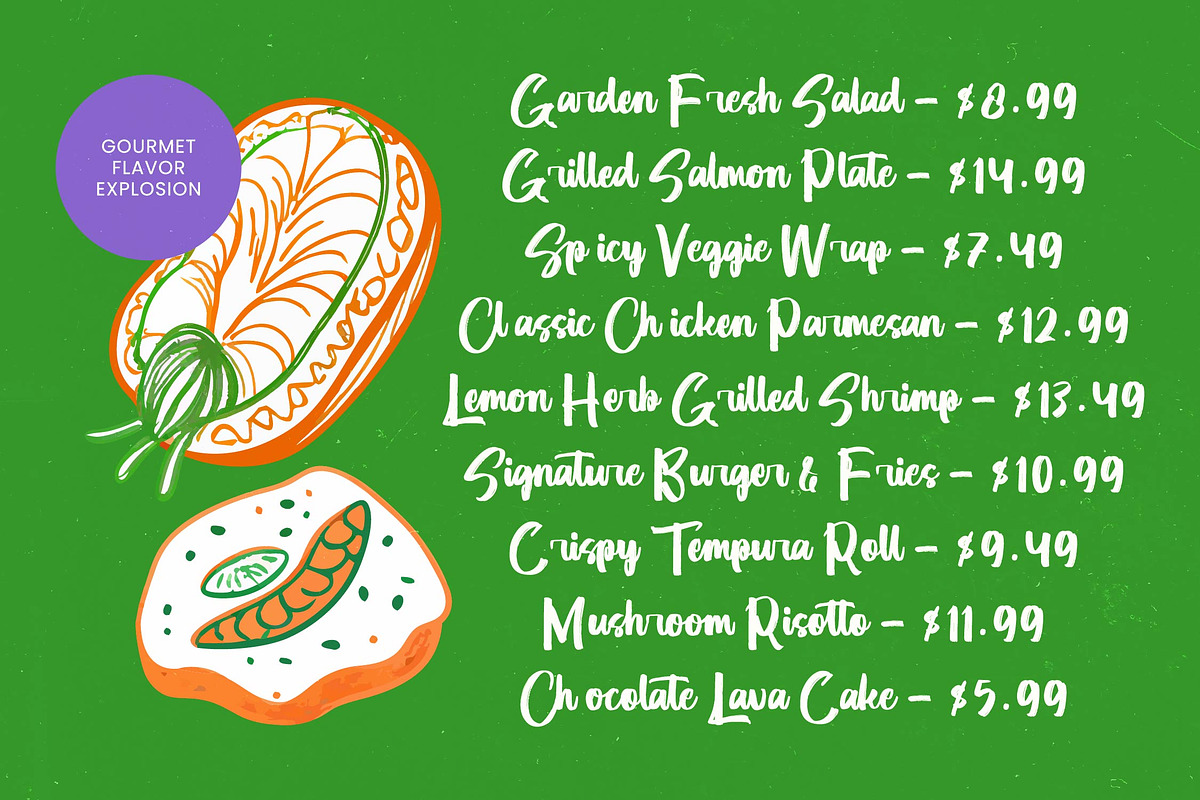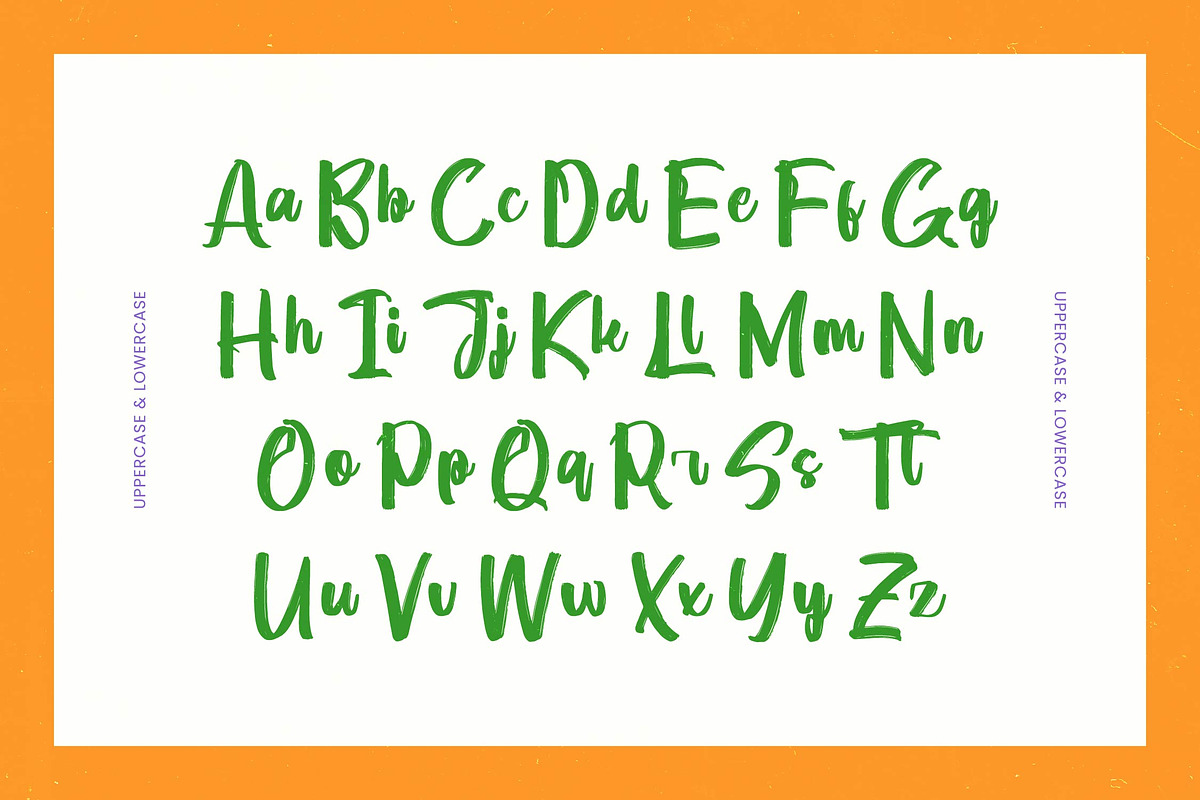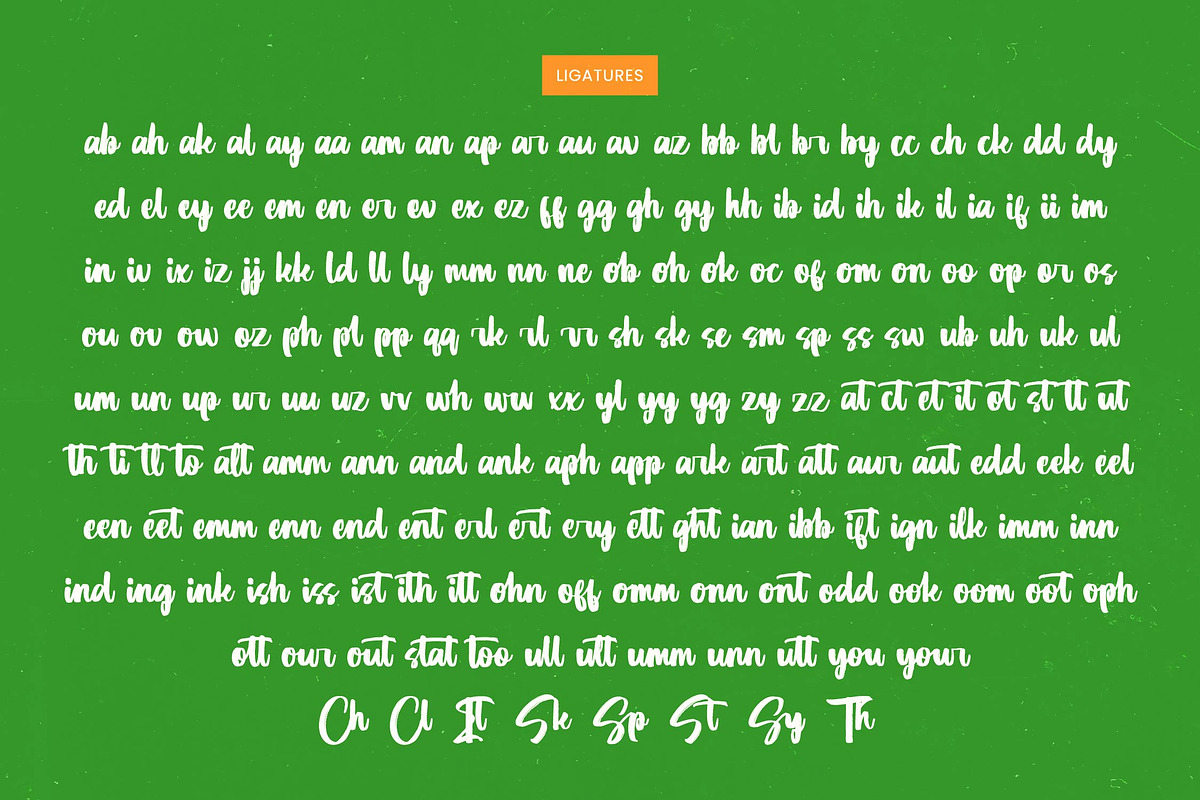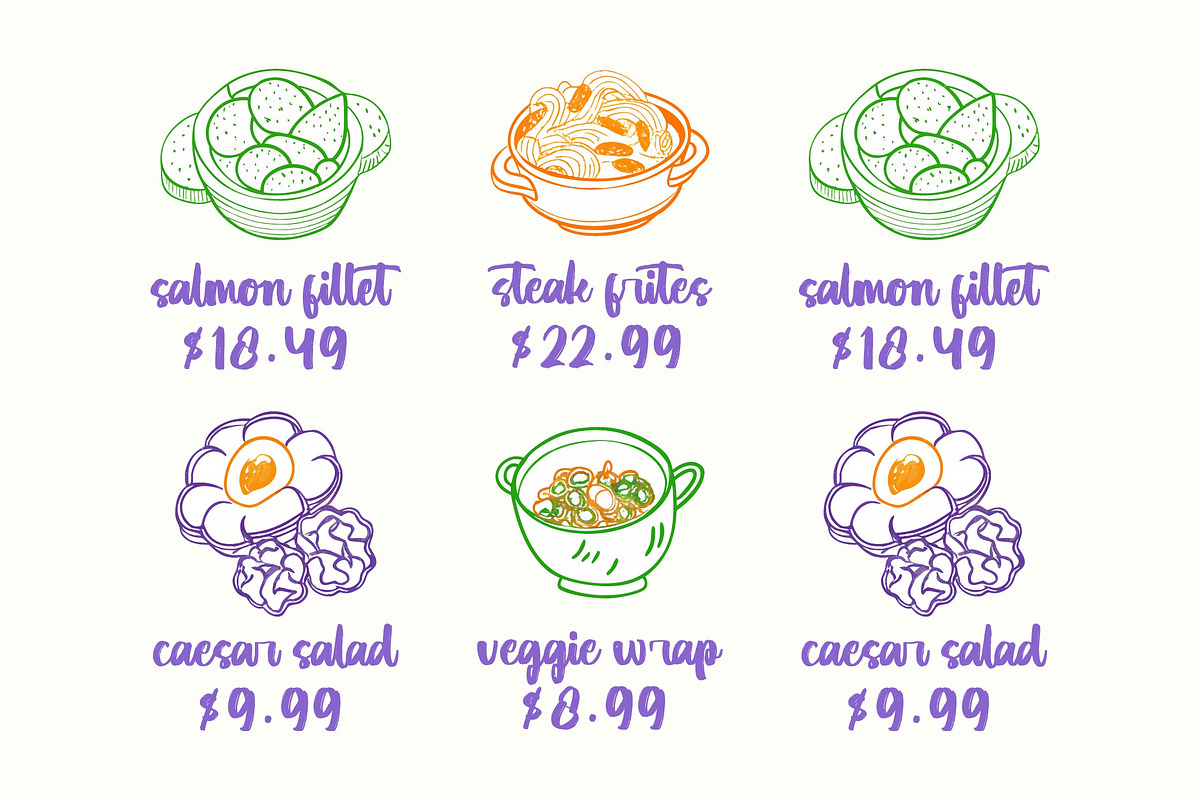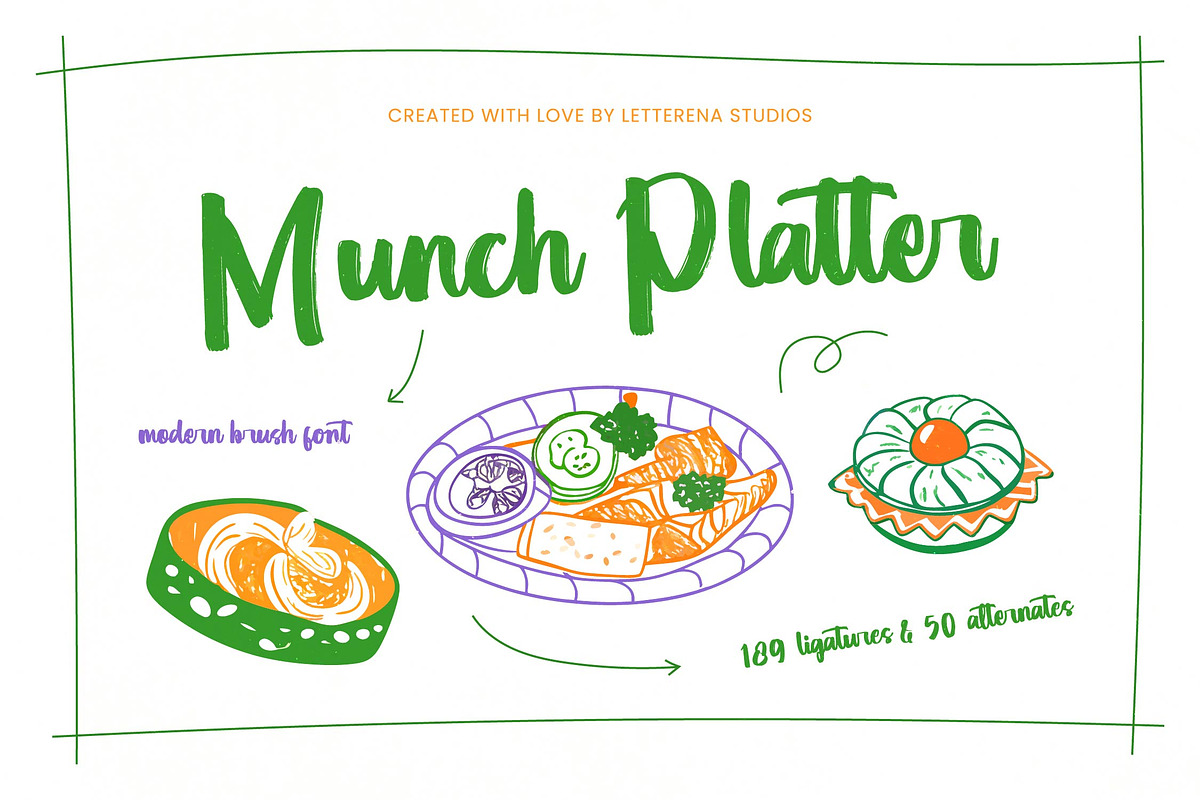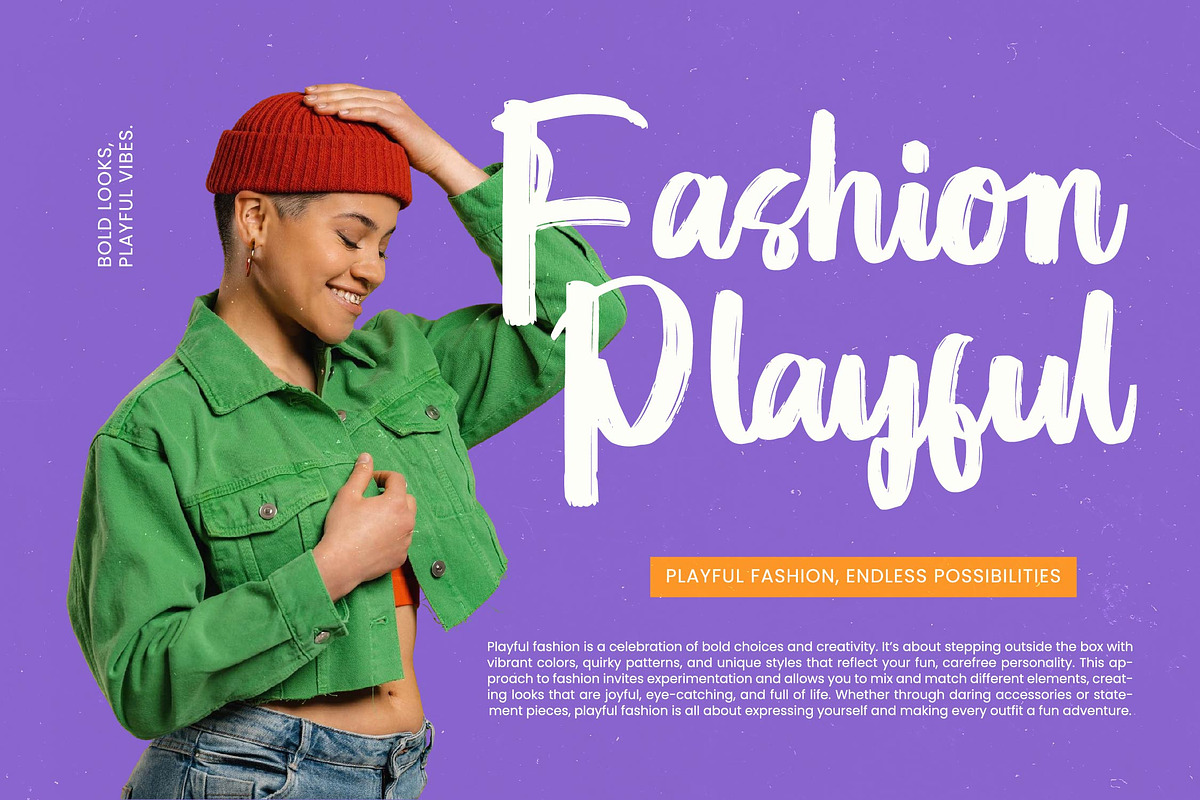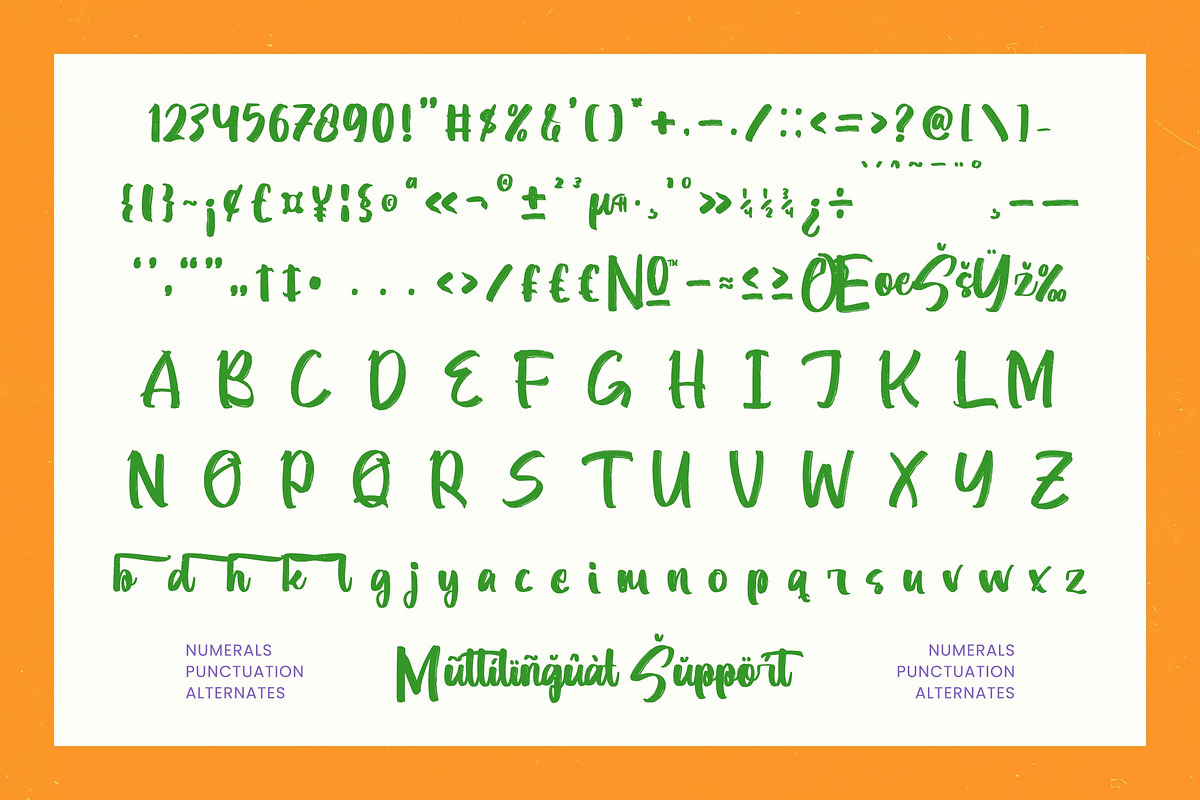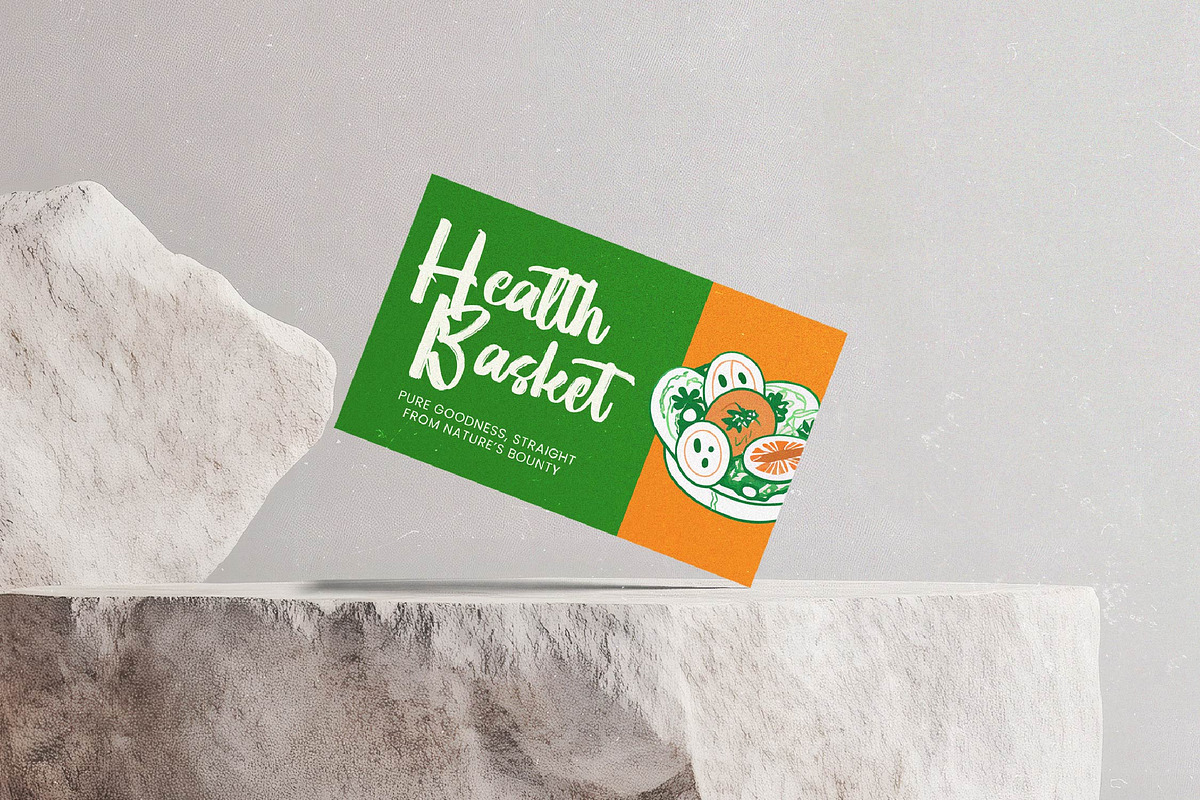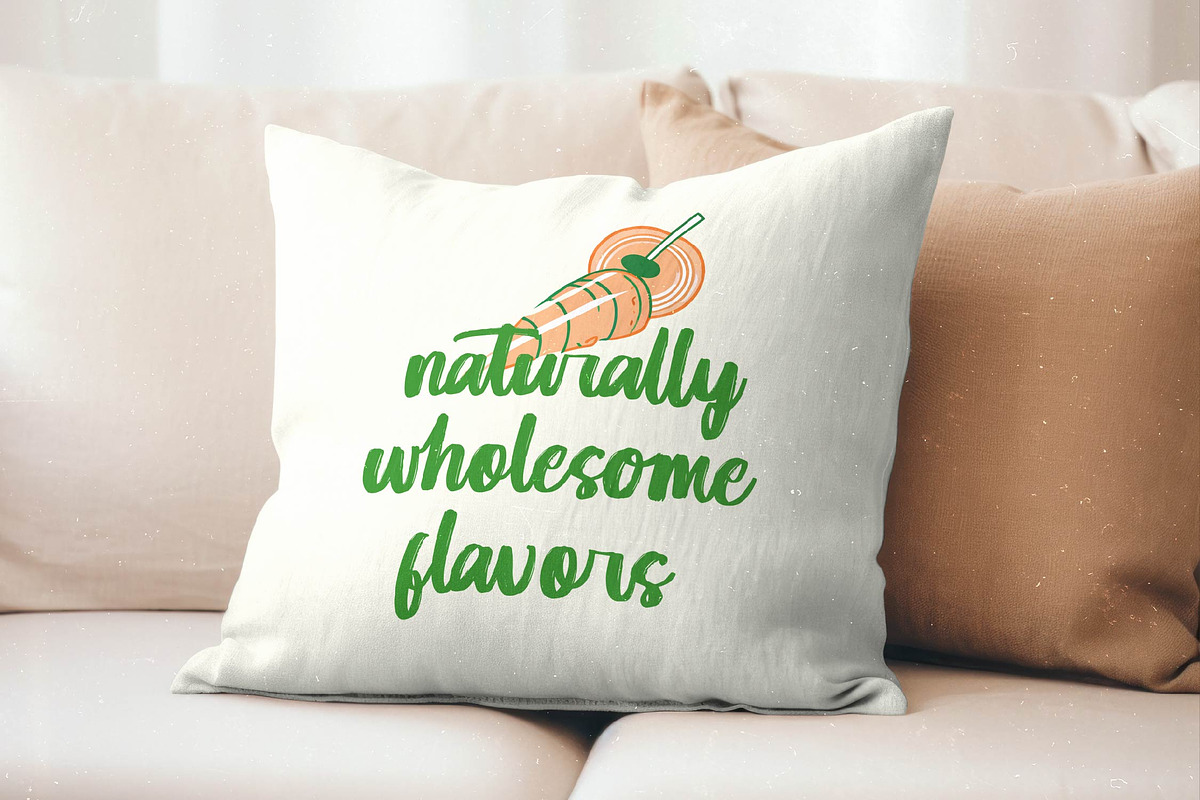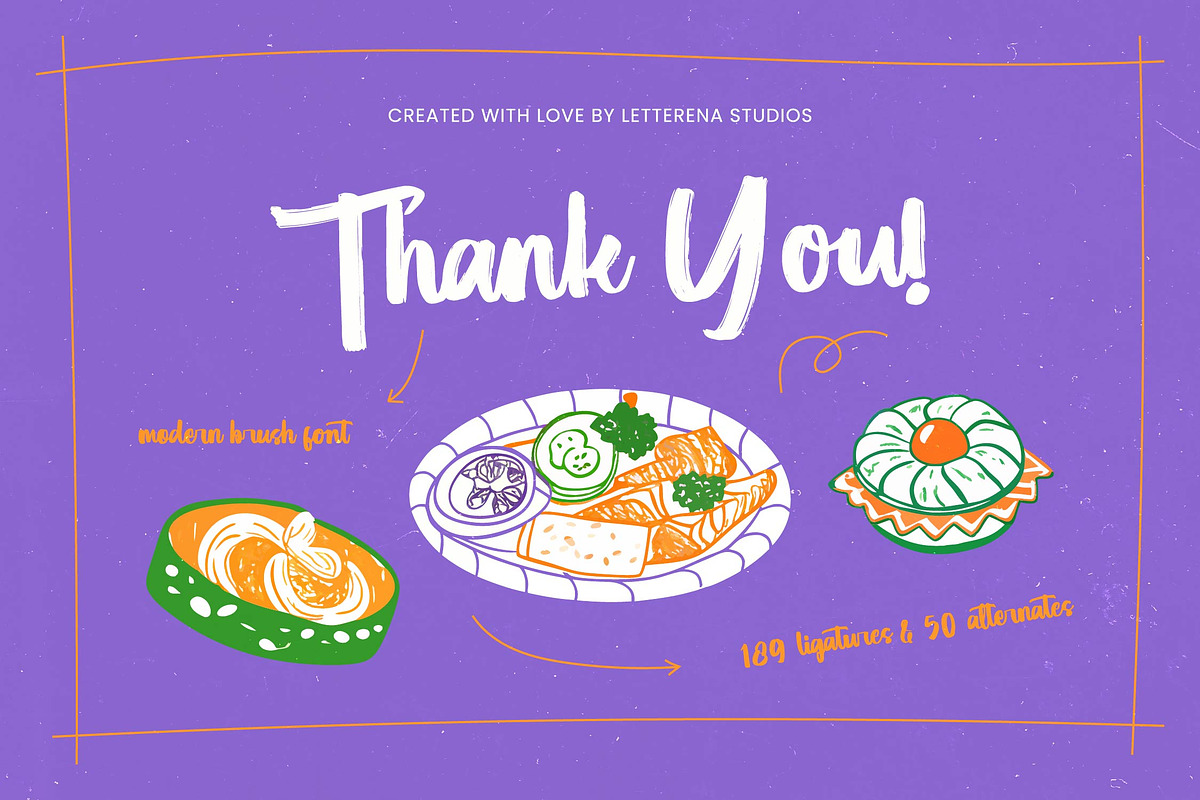
Munch Platter Modern Brush Font
Munch Platter - Modern Brush Font , Munch Platter captures the raw energy of hand-painted artistry, bringing a vibrant and delicious soul to every design project it touches. This is more than just a typeface; it is a celebration of organic textures and playful movement designed to make your message stand out instantly.
Inspired by the casual charm of chalkboard menus and the artisanal feel of gourmet food packaging, this font was crafted to evoke the warmth of a home-cooked meal. The rhythmic strokes and natural imperfections reflect the spontaneous joy of a shared platter among friends in a sunny outdoor bistro setting.
Boasting a bold and confident presence, this modern brush display delivers a sense of luxury typography through its fluid connections and textured edges. It provides a significant branding impact for those seeking an editorial font that feels both approachable and high-end, making it a versatile choice for contemporary aesthetics.
Staying ahead of the modern brush trend, this typeface aligns perfectly with the current demand for character-driven typography that breaks away from digital sterility. It satisfies the need for editorial display fonts in a market that increasingly values authenticity, craftsmanship, and a personalized human touch.
From high-end logo design to cohesive branding identities, this font excels in creating memorable visuals for packaging, especially within the food and beverage industry. It is also an exquisite choice for editorial layouts, unique wedding invitations, and avant-garde fashion lookbooks that require a signature style.
The package is incredibly robust, featuring an expansive set of ligatures and alternates that allow for custom-look compositions every time. With full multilingual support and a comprehensive range of international characters, it ensures your creative vision translates perfectly across global borders without losing its swashes or charm.